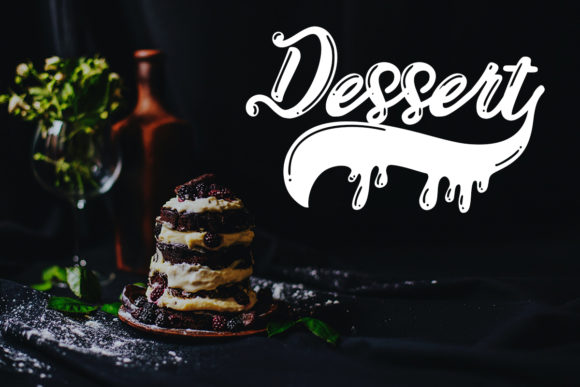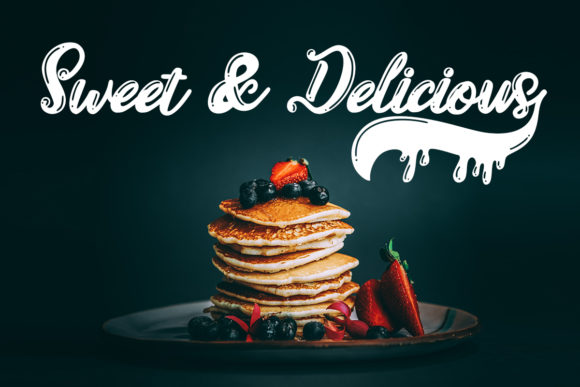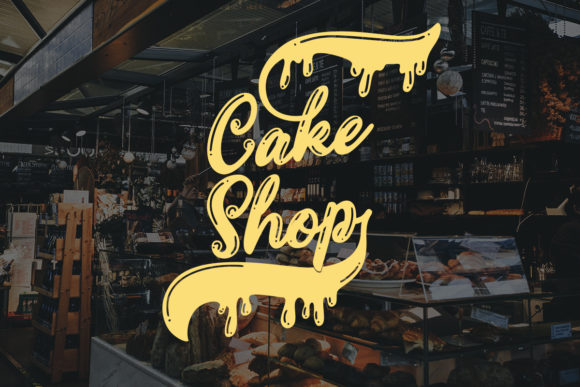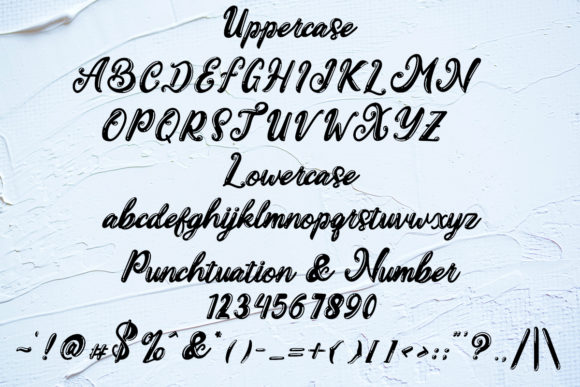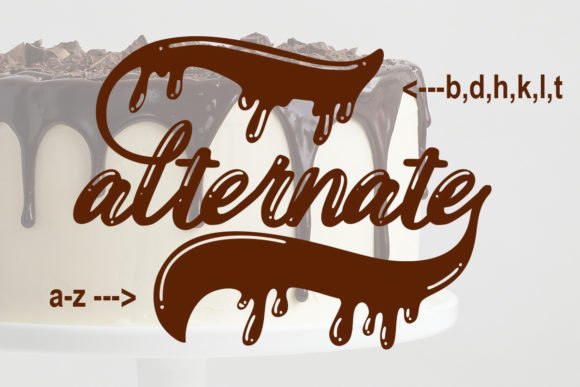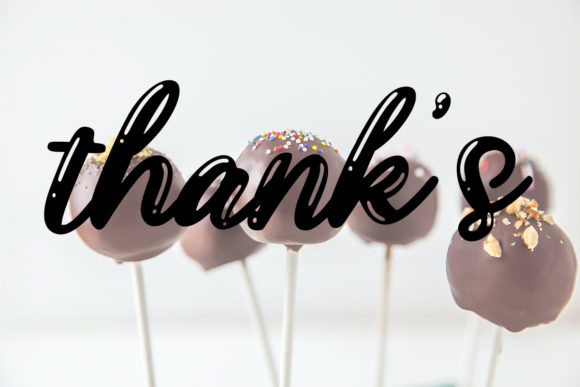
The Sweet Spot: Discovering the Charm of Butter Drips Font
I’ll never forget the time I was working on a project for a local bakery, tasked with creating a menu that would make their treats irresistible to customers. As I scrolled through font after font, nothing seemed quite right – until I stumbled upon Butter Drips. This unique, handwritten font instantly captured the playful, indulgent spirit of the bakery, and I knew I’d found the perfect fit. In this article, I’ll share my experience with Butter Drips, and explore how you can make the most of this delightful font in your own design projects.
So, what makes Butter Drips so special? Here are a few things that I absolutely love:
• ✨ Unique and playful vibe: Butter Drips has a certain whimsical charm that’s hard to find in other fonts.
• ✅ PUA encoded for easy access: The font’s PUA encoding means you can easily access all the glyphs and swashes you need.
• 💫 Perfect for food-related designs: From cake menus to candy shop posters, Butter Drips is tailor-made for designs that need to tantalize the taste buds.
Of course, no font is perfect, and Butter Drips has a few minor quirks to be aware of:
• ⚠️ Limited use in formal contexts: As with any playful font, Butter Drips might not be the best choice for more formal or corporate designs.
• 🤔 Some manual adjustment may be needed: Depending on your design, you might need to tweak the font’s spacing or sizing to get the perfect look.
The Story Behind Butter Drips
Butter Drips was created with the goal of capturing the magic of handwritten fonts, while still being easy to read and use. The designer wanted to create a font that would evoke the feeling of indulging in sweet treats – and we think they succeeded!
Is Butter Drips easy to read? Yes, despite its playful nature, Butter Drips is surprisingly easy to read – making it perfect for designs that need to communicate information.